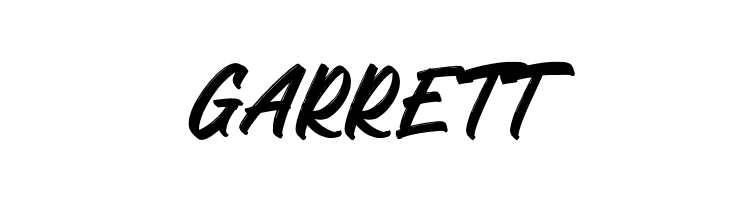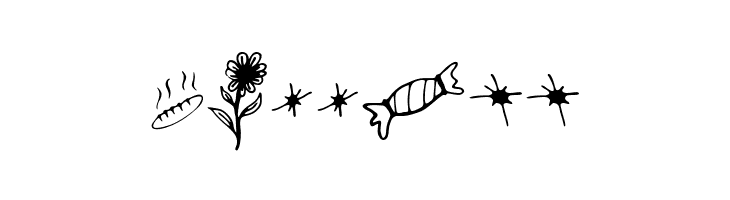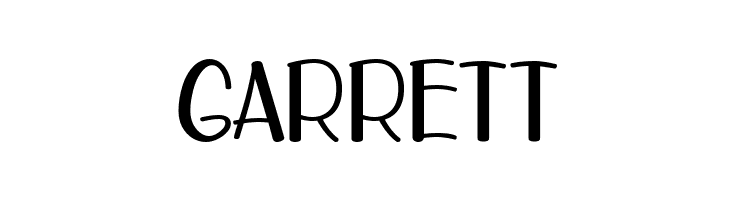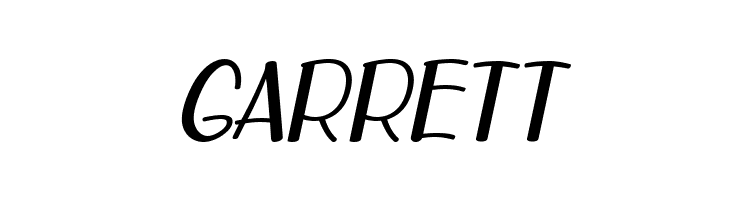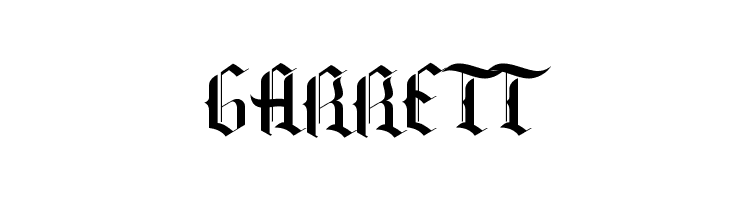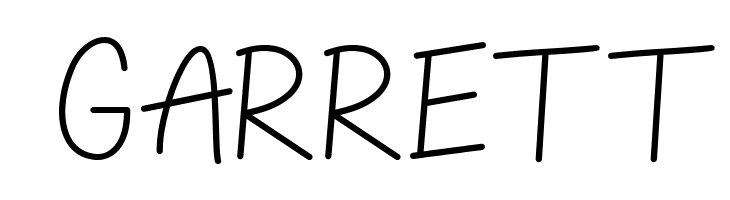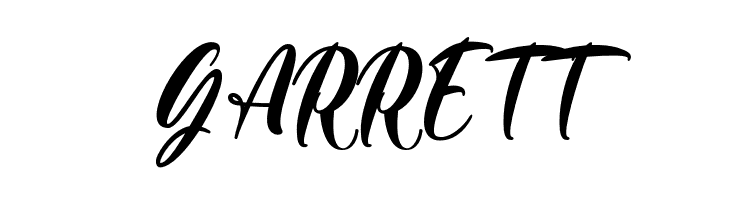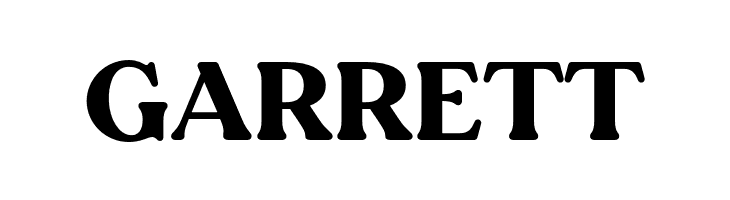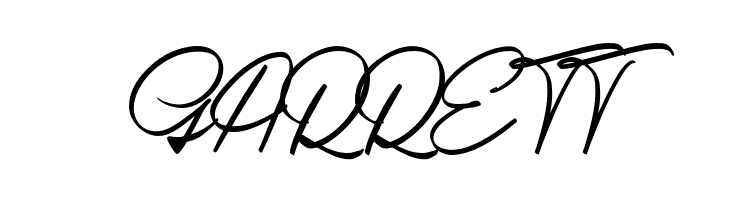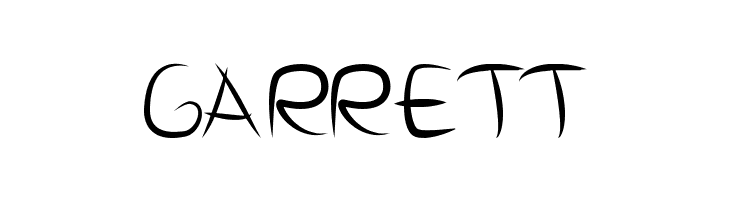
• Cardosan
A bold, angular font with a hand-carved, ancient script style.
• Cardosan Bold
A bold, angular font with a geometric and modern style.
• Cardosan Bold Italic
A bold, italicized font with sharp angles and high contrast, ideal for dynamic designs.
• Cardosan Italic
A bold, italicized font with angular, dynamic letterforms.
• CARDOVA
A modern, geometric font with a clean and professional appearance.
• Care Around
A playful, hand-drawn font with a whimsical and friendly appearance.
• Care Around Dingbats
A whimsical and playful set of hand-drawn dingbats featuring diverse symbols.
• Care Around Italic
A playful, italic font with smooth curves and a dynamic style.
• CARE SNOWBIE
A playful, hand-drawn font with tall, narrow letters and rounded edges.
• Carecrash Personal Use
A bold, textured font with a distressed, vintage style.
• Carefour
A graceful script font with flowing, interconnected characters and delicate strokes.
• Carefour Bold
A cursive, handwritten-style font with elegant, flowing characters.
• Careista
A playful handwritten font with smooth, flowing lines and a casual style.
• Careless Carry
A bold, brush-textured font with a rugged and dynamic appearance.
• Careless Carry
A bold, textured, hand-painted style font with a dynamic, artistic feel.
• Carelina
An elegant and flowing script font with intricate, decorative letterforms.
• Carelo Brush
A dynamic brush script font with bold, fluid strokes and a lively appearance.
• Carena Regular
A bold serif font with strong, classic features and pronounced serifs.
• CarentroDEMO
A sophisticated serif font with high contrast and elegant serifs.
• Caress
A bold, rounded font with a playful and friendly style.
• CarezaRizRegular
Elegant, flowing script with a handwritten style.